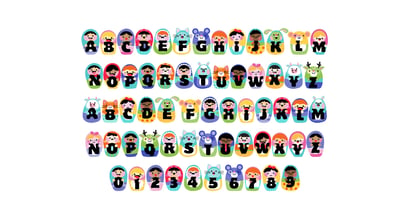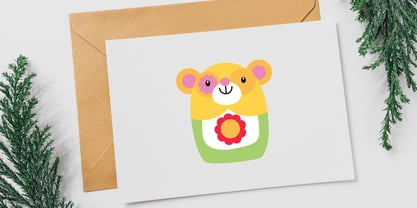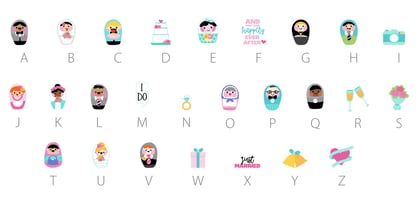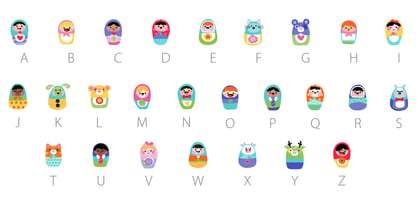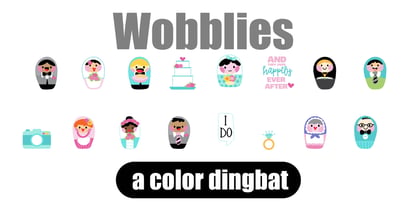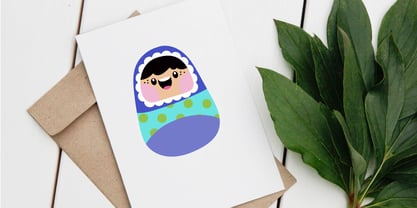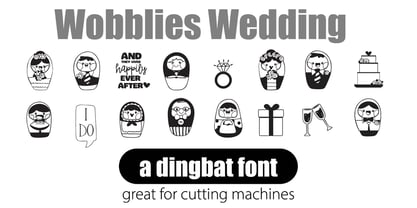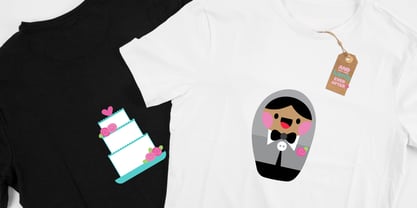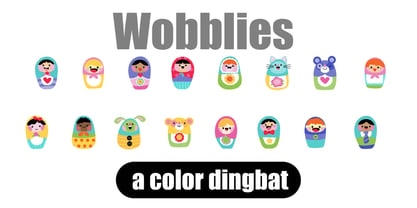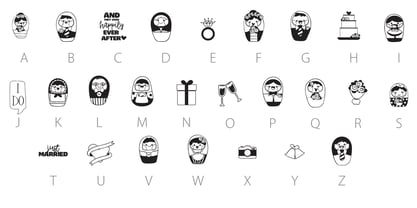
Wobblies
by Illustration Ink
The Wobblies Font Family was designed by Illustration Ink and published by Illustration Ink. Wobblies contains 5 styles and family package options. More about this family
Wobblies! This font bundle features adorable maytroshka dolls and wedding imagery. This bundle has 1 full-color font, with an alt case of additional colors of each letter that you can access through your system or Silhouette's glyph map, 2 full-color dingbats, and 2 regular dingbats.
Wobblies